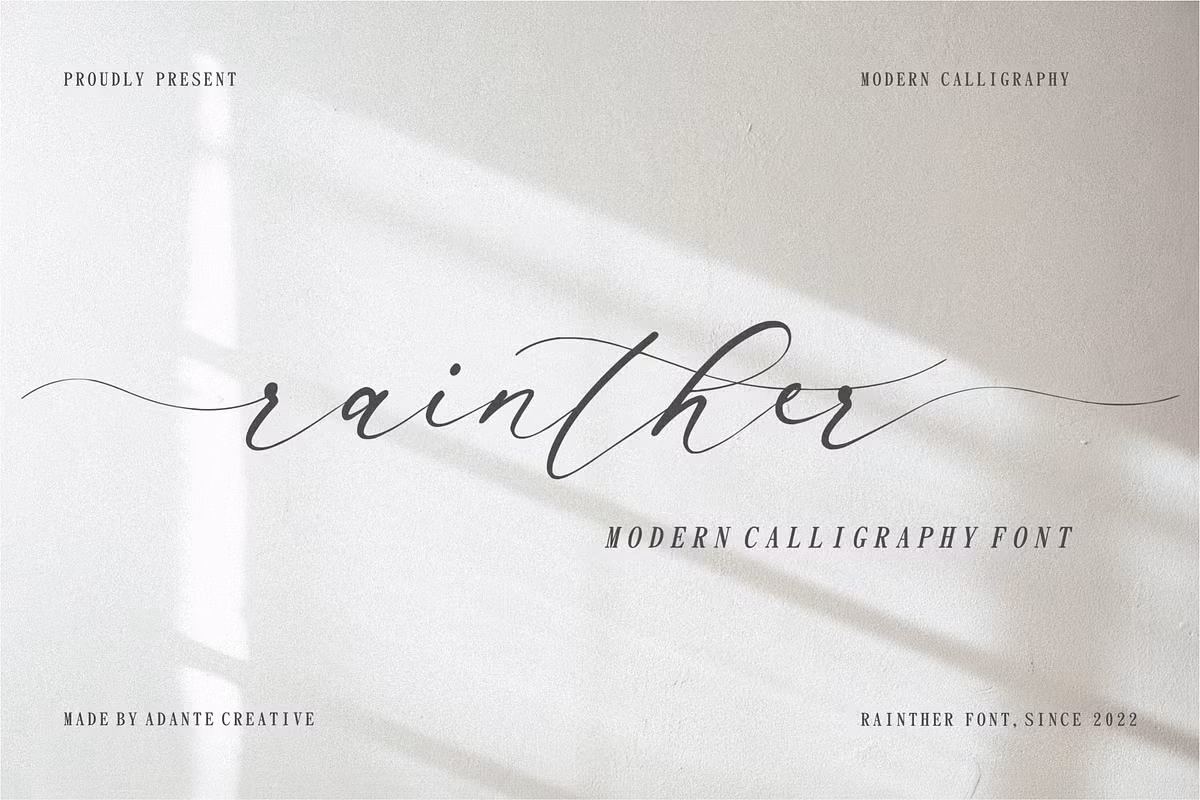
The Rainther Font Free Download is a sleek and elegant typeface designed to bring a touch of modern sophistication to your designs. Perfect for logos, branding, websites, editorial design, and social media graphics, this font combines minimalist elegance with contemporary style.
With its clean lines and balanced letterforms, Rainther provides excellent legibility while maintaining a refined look. It includes uppercase and lowercase letters, numbers, punctuation, and multilingual support, making it versatile for a wide range of applications.
Elevate your designs with the Rainther Font Free Download. Try it today and bring a modern, polished touch to your creative projects!